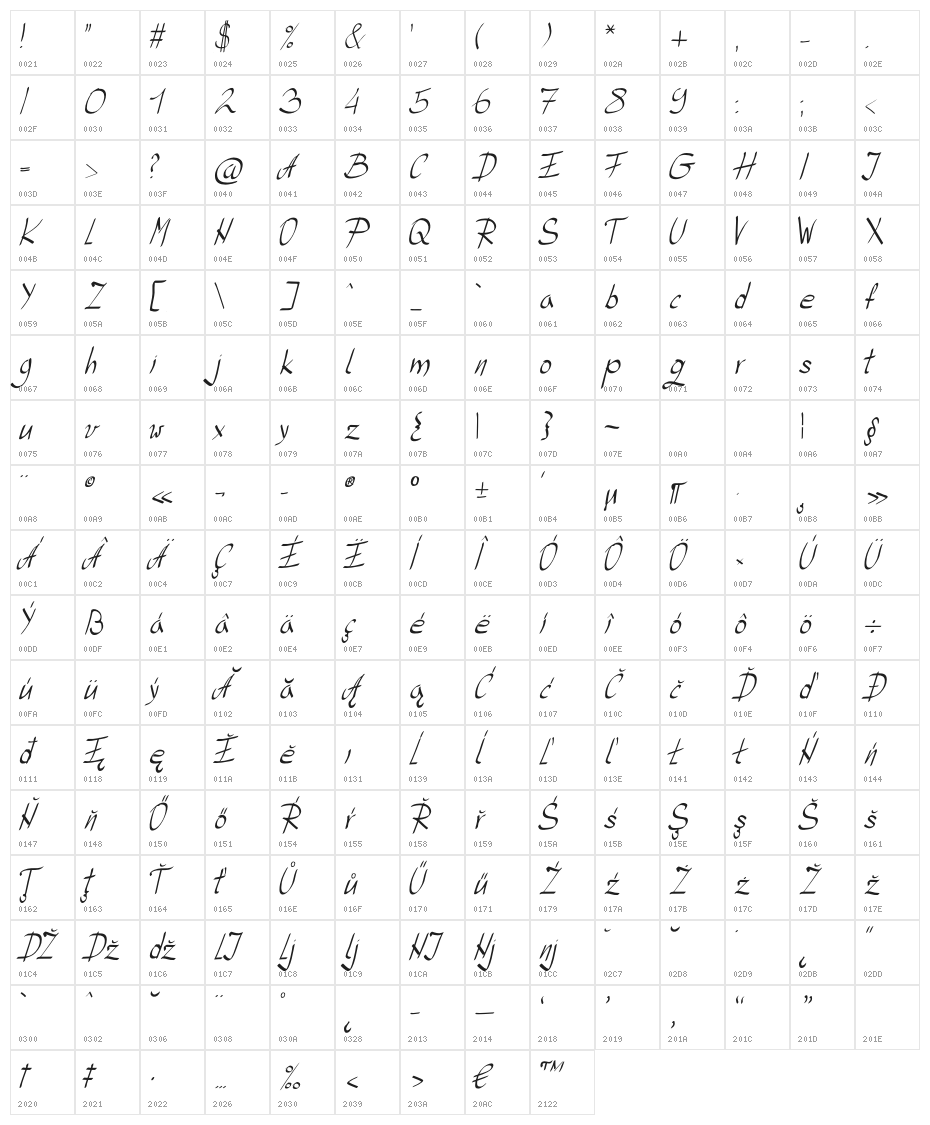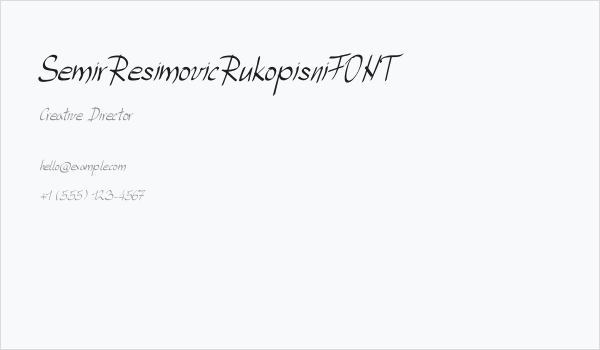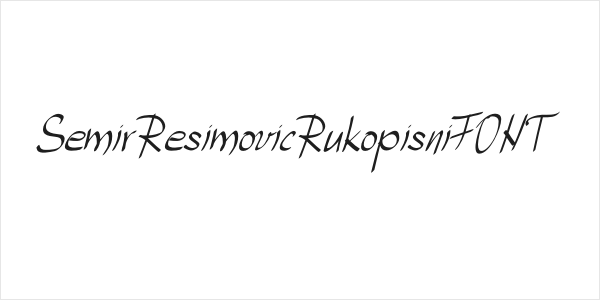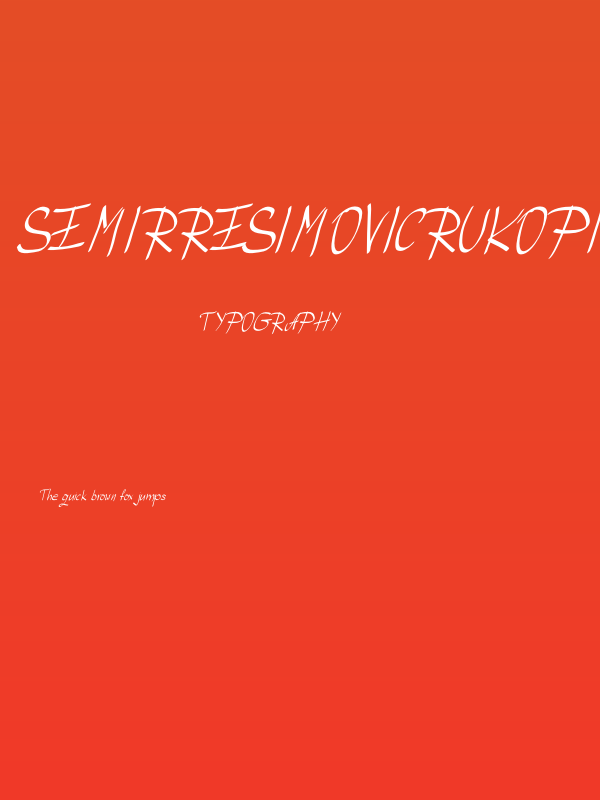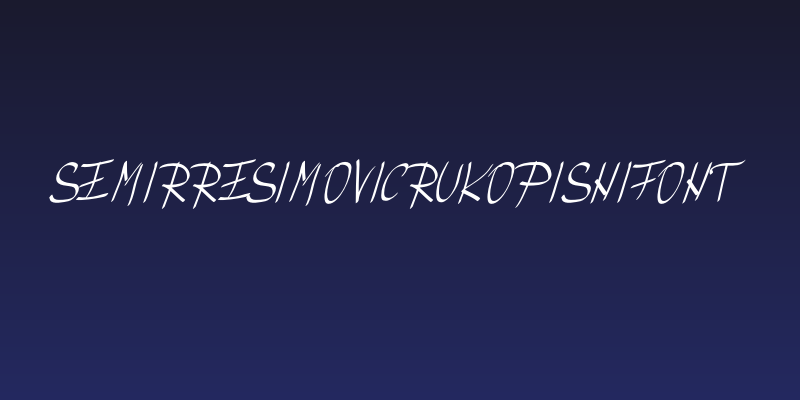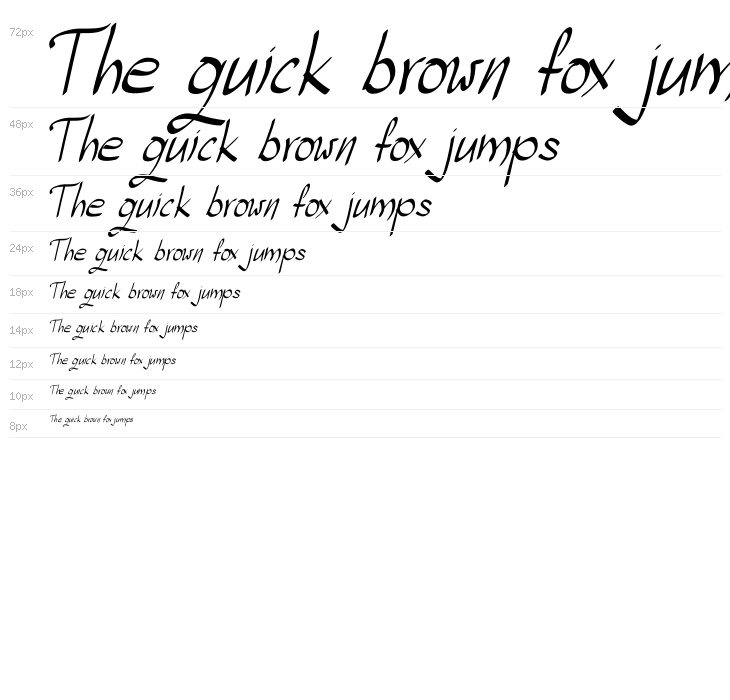
SemirResimovicRukopisniFONT Font
SemirResimovicRukopisniFONT Description
This font exhibits a dynamic and fluid handwritten style, characterized by its elegant and flowing letterforms. The uppercase letters are tall and slightly slanted, giving a sense of movement and grace. The lowercase letters maintain a consistent style with smooth curves and a slight slant, enhancing the handwritten feel. The numbers are well-integrated into the overall design, maintaining the same fluidity and style as the letters. Special characters are creatively designed, adding to the font's unique personality. This font is ideal for projects that require a personal touch, conveying elegance and sophistication.
| Overall Style | Elegant, Artistic |
| Proposed Projects | Ideal for wedding invitations, personal branding, greeting cards, and artistic projects. |